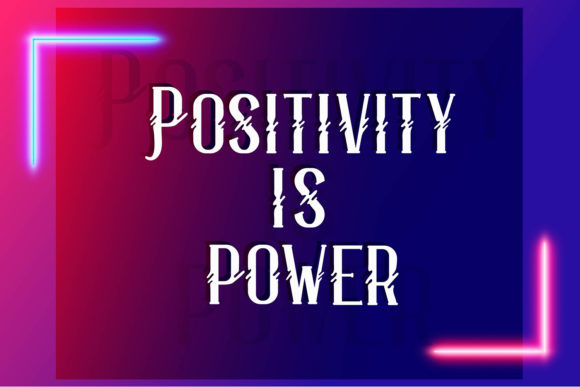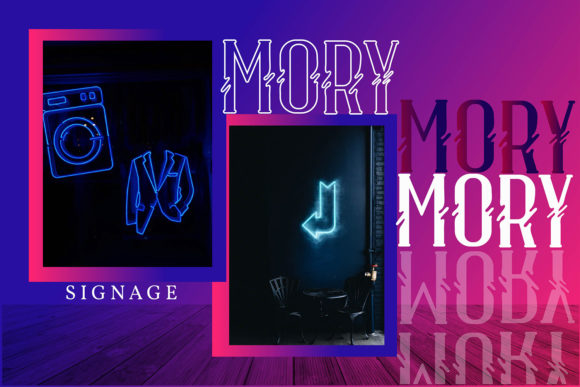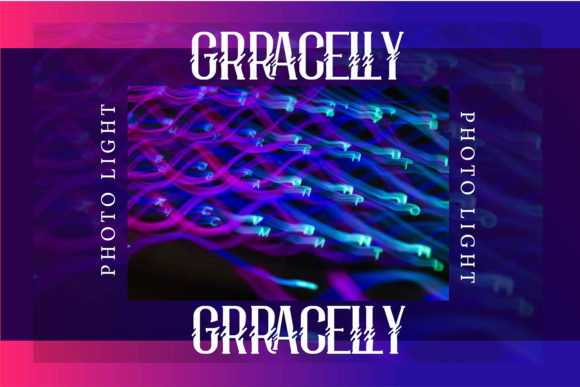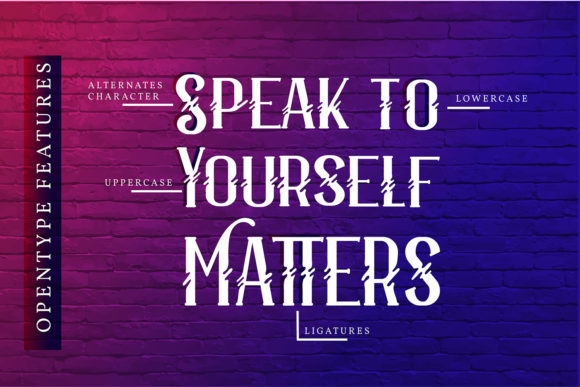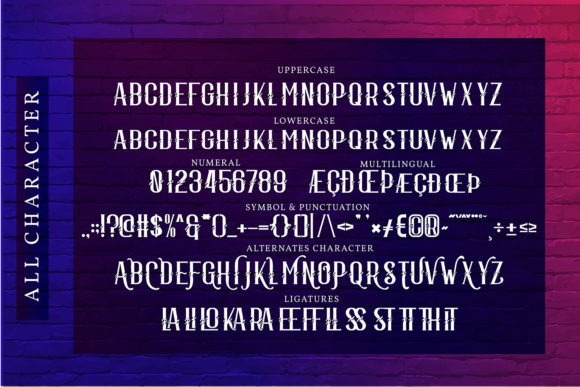
Introduction to Rightmore Font Font
Fonts play a crucial role in design, and the Rightmore Font font is a typeface that brings both character and versatility to any project. Whether you’re working on a branding project, a website, or a print design, the Rightmore Font font offers a unique style that can elevate your work.
Rightmore is an assertive, trendy and retro styled display font.
This font is PUA encoded which means you can access all of the glyphs and swashes with ease Fall in love with its versatile style and use it to create spectacular designs.
Key Features of Rightmore Font Font
Why Choose Rightmore Font Font?
The Rightmore Font font is more than just a typeface – it’s a design tool that helps you communicate your message with style and clarity. Its unique character set and versatile design make it suitable for a wide range of applications, from elegant invitations to bold headlines.
With its carefully crafted letterforms and balanced proportions, the Rightmore Font font ensures readability and visual appeal across all mediums.
What makes Rightmore Font font special?
The Rightmore Font font stands out with its unique design, exceptional readability, and versatility across various design applications.